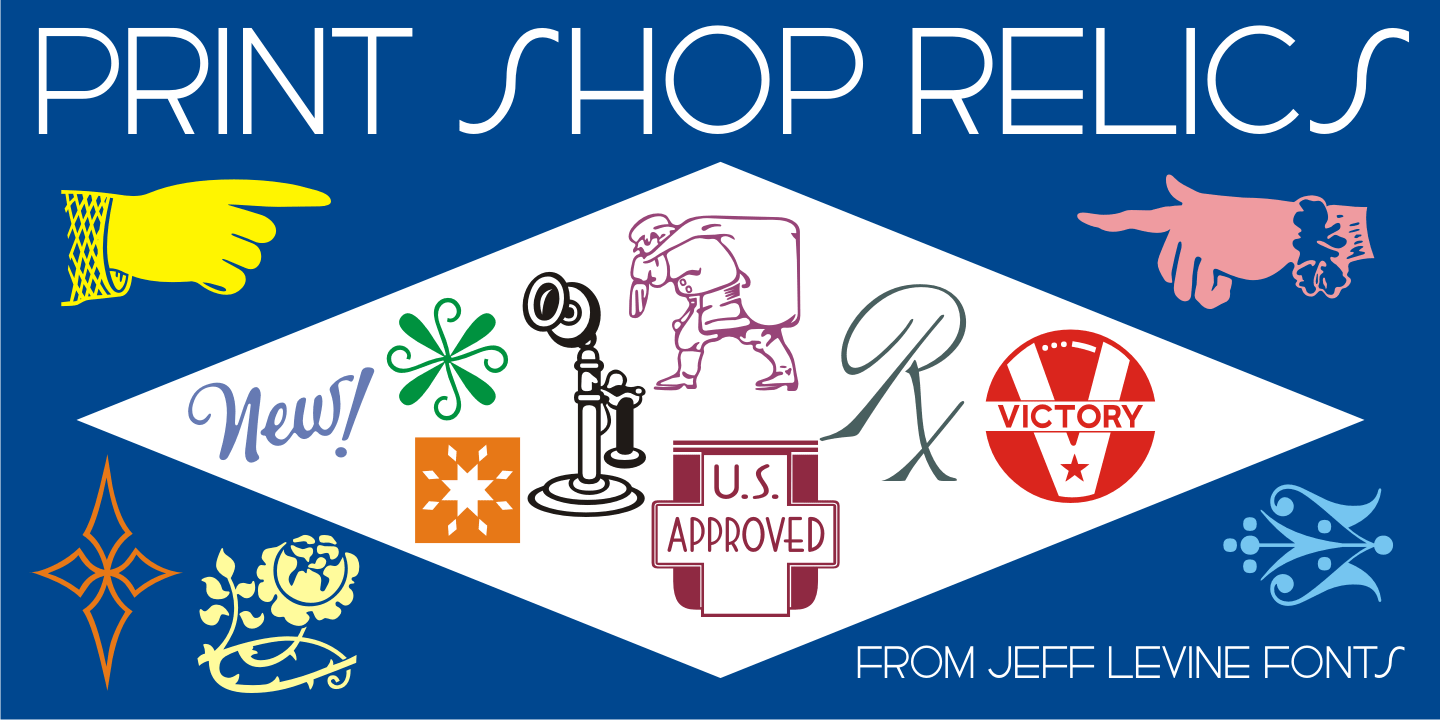
Print Shop Relics
Pointing hands, floral embellishments, a World War II 'Victory' emblem and a vintage telephone are but a few of the classic images redrawn from vintage source material for Print Shop Relics JNL.
Lovers of pre-digital clip art from the letterpress era will find these embellishments useful, charming and helpful.